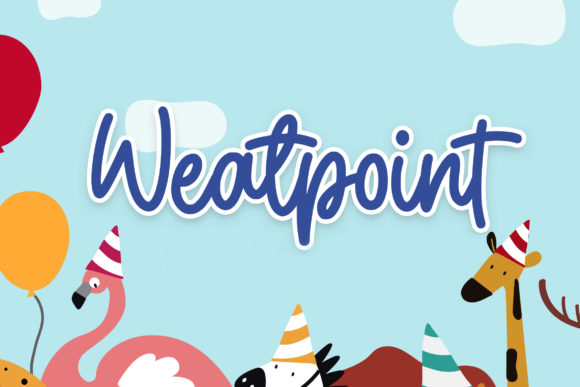
Weatpoint Font
Welcome to the whimsical world of Weatpoint, a font that dances across the page with playful elegance. This enchanting script font, lovingly crafted by StringLabs, invites you to let your creativity run wild.
Imagine your words taking on a life of their own, adorned with Weatpoint's charming curves and whimsical flourishes. Each letter, a tiny masterpiece, flows seamlessly into the next, creating a melody of visual delight.
Weatpoint is the perfect companion for your most cherished projects. It transforms birthday invitations into invitations to a world of wonder, where every word whispers a secret. Comic strips and cartoons come alive, filled with the infectious laughter of Weatpoint's infectious personality.
But Weatpoint's magic knows no bounds. It captivates in logos, adding a touch of enchantment to your brand identity. Social media posts shimmer with its playful charm, grabbing attention and igniting conversations.
Embrace the artistry of Weatpoint and watch your words transform into whimsical expressions of your soul. It's not just a font; it's a gateway to imagination, a tool to paint dreams onto reality.